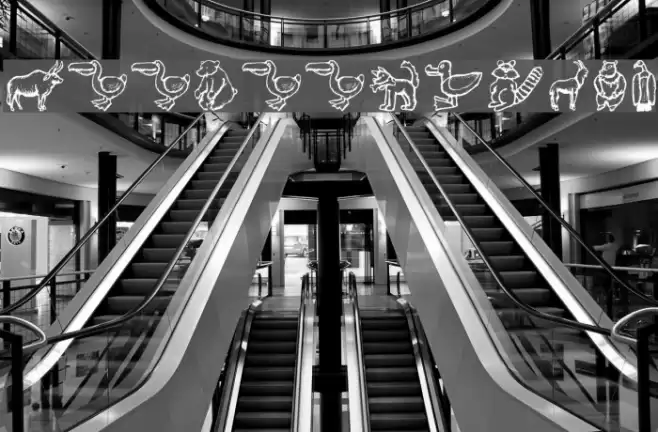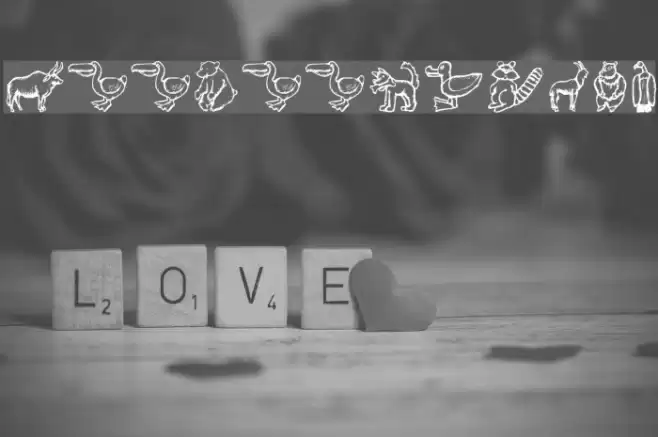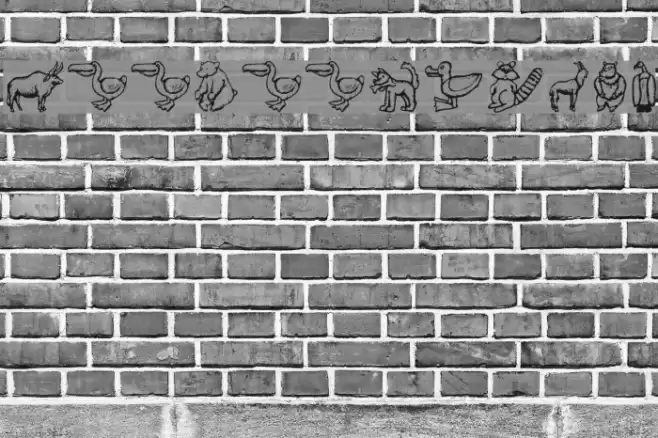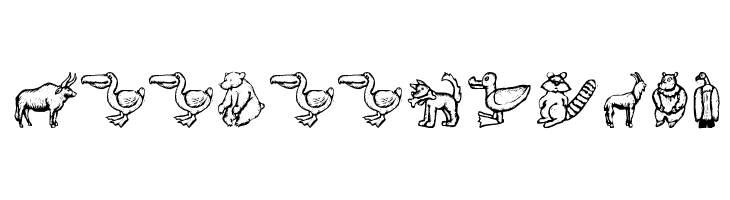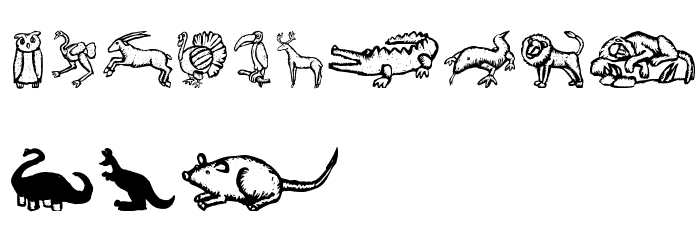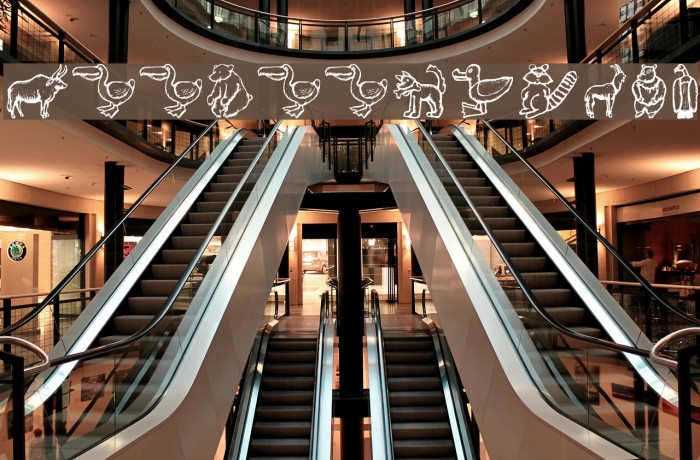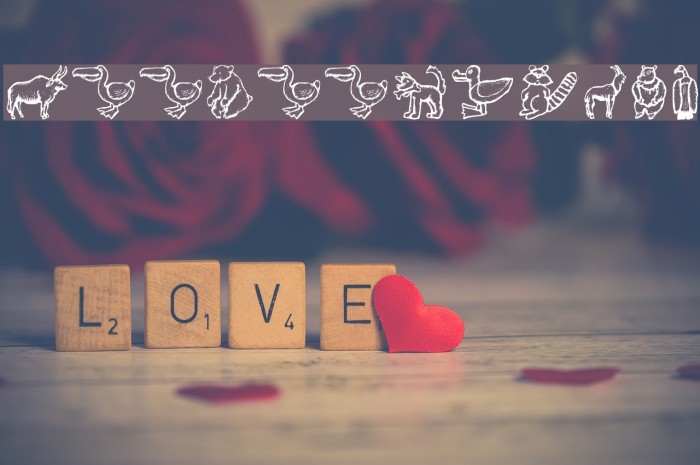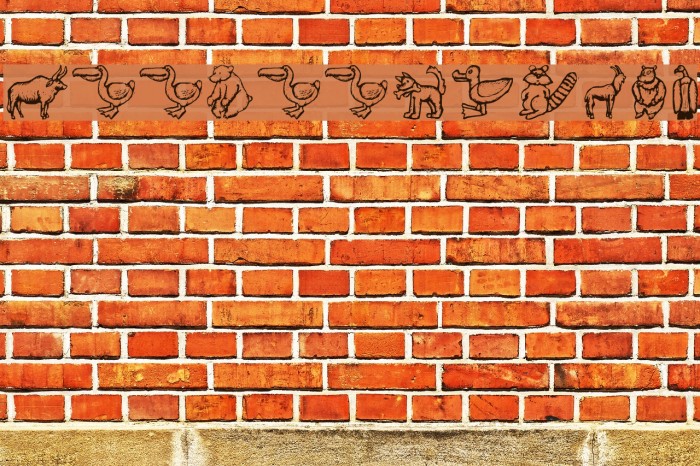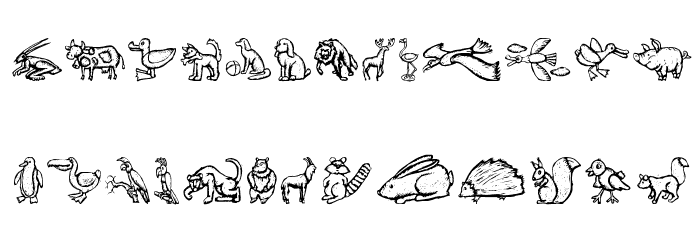
ZooWoodcutsM Font
ZooWoodcutsM Description
This collection features a variety of animal illustrations, each rendered in a woodcut style that evokes a sense of rustic charm and historical artistry. The animals are depicted with bold outlines and intricate details, capturing the essence of each creature in a stylized manner. The illustrations include a diverse range of animals, from domestic to wild, each with a unique pose and expression. The woodcut technique gives the images a textured appearance, reminiscent of traditional printmaking methods. This set is ideal for projects that require a touch of vintage or artisanal flair, offering a whimsical yet classic aesthetic.
A collection of woodcut-style animal illustrations with bold outlines and intricate details from Dingbats fonts.
- Proposed Projects: Ideal for children's books, educational materials, vintage-themed designs, and artisanal product packaging.
- Overall Style: Vintage
- Use Case: Logos, Illustrations, Decorative elements